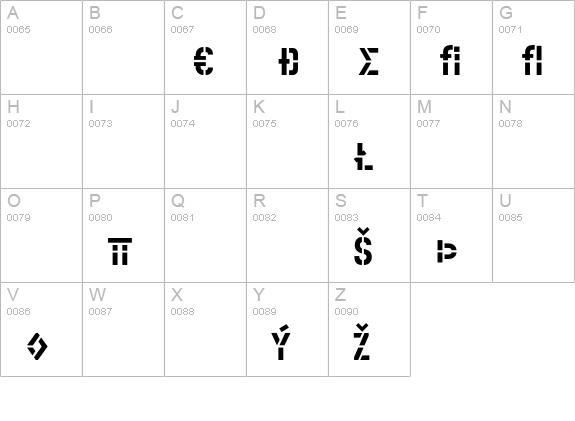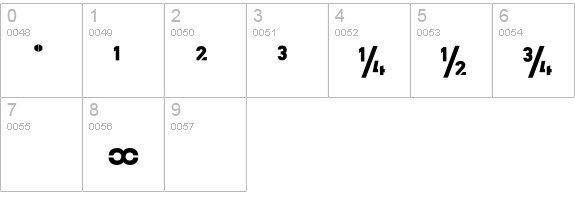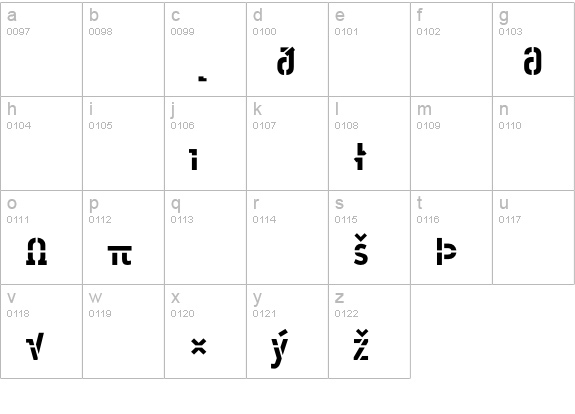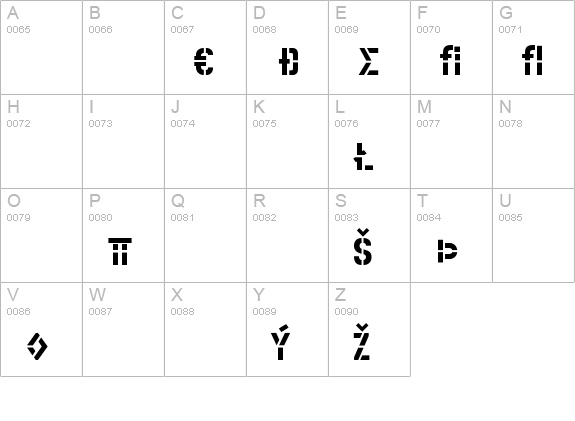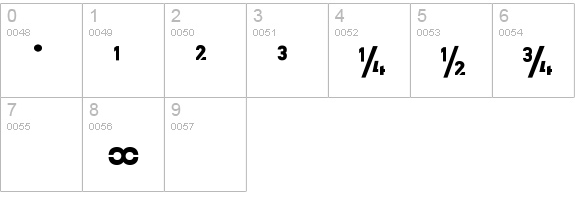
Offline-BoldExpert is a modern and stylish font that exudes confidence and sophistication. Its bold and expertly crafted design makes it perfect for headlines, titles, and other design projects that require a strong and impactful look. With its clean lines and sharp edges, this font commands attention and leaves a lasting impression. What sets Offline-BoldExpert apart is its versatility - it can be used for a wide range of design applications, from branding to packaging to web design. Its bold presence on the page ensures that your message will be heard loud and clear. The best part? Offline-BoldExpert is available for free download at FontsMarket.com. So you can easily add this powerful font to your collection without breaking the bank. Don't miss out on the opportunity to enhance your designs with the bold and expert style of Offline-BoldExpert font.